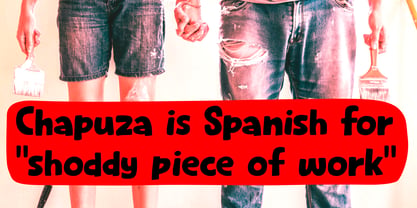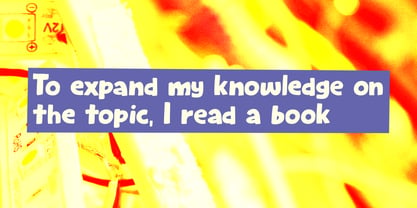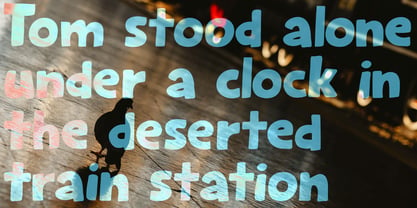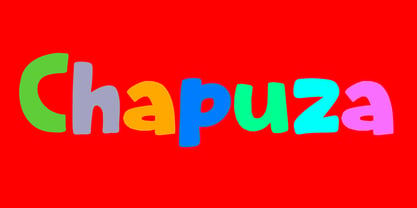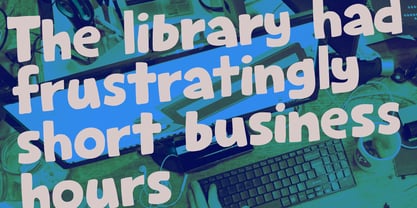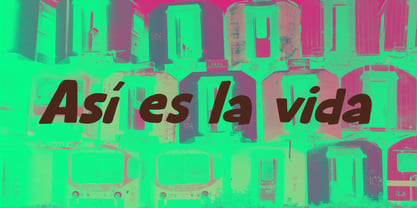
Chapuza Pro
Die Schriftfamilie Chapuza Pro wurde von David Kerkhoff entworfen und von Hanoded veröffentlicht. Chapuza Pro enthält 2 Stile und Familienpaketoptionen. Mehr über diese Familie
Chapuza is Spanish for ‘shoddy piece of work’. I don’t consider my work to be shoddy, but I needed a funny name for this fun font and Chapuza it was!
Chapuza is a cartoon-like font, ideally suited for children’s books, posters or libraries. It was entirely made by hand, so you'll be buying an original. I have never used AI in my work, nor ever will. Chapuza comes with extensive language support and an auto-rotating set of contextual alternates.
Hanoded is run by Dutchman David Kerkhoff. His fonts are a mishmash of styles, as he just creates whatever pops into his head. You will find a lot of brush fonts in his collection, as his favourite tools are brushes and Chinese ink, with cartoon style fonts and script fonts complementing his repertoire. Aside from making fonts, David occasionally guides tours in far-flung places, renovates his '30's house and tries reasoning with his wife and (teenage) kids. Not an easy task!